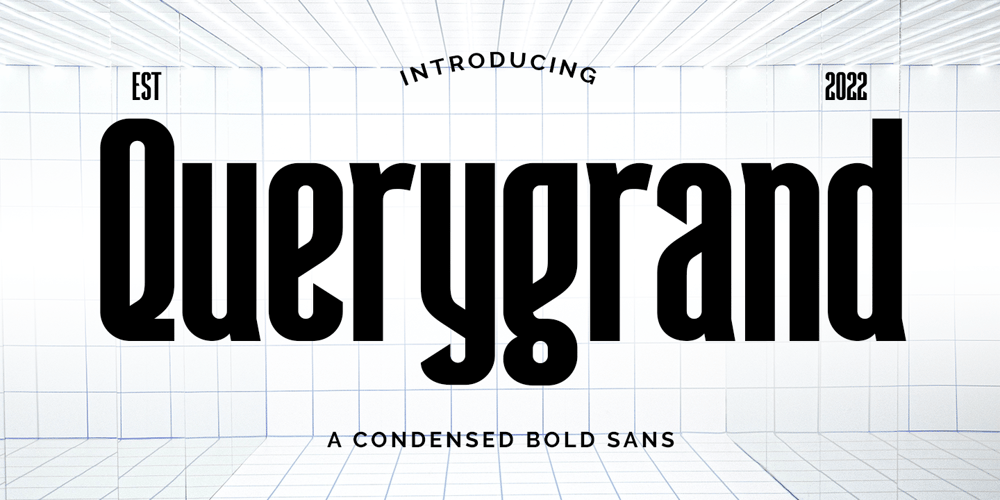
Querygrand Font Family was designed by Abdul Malik Wisnu and published by Almarkha Type. Querygrand contains 1 styles and family package options. Introducing Querygrand – Authentic Condensed Bold Sans with strong and challenging nuances. very suitable for the title, typography, magazines, brochures, packaging and much more for your design needs, making your designs more modern and professional.